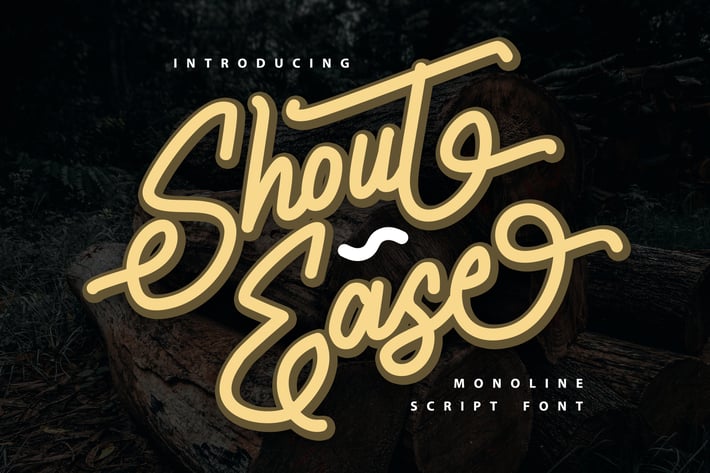
Shout Ease | Monoline Script Font
Shout Ease | Monoline Script Font with a calligraphy style, So beautiful on invitation like greeting cards, branding materials, business cards, quotes, posters, and more!